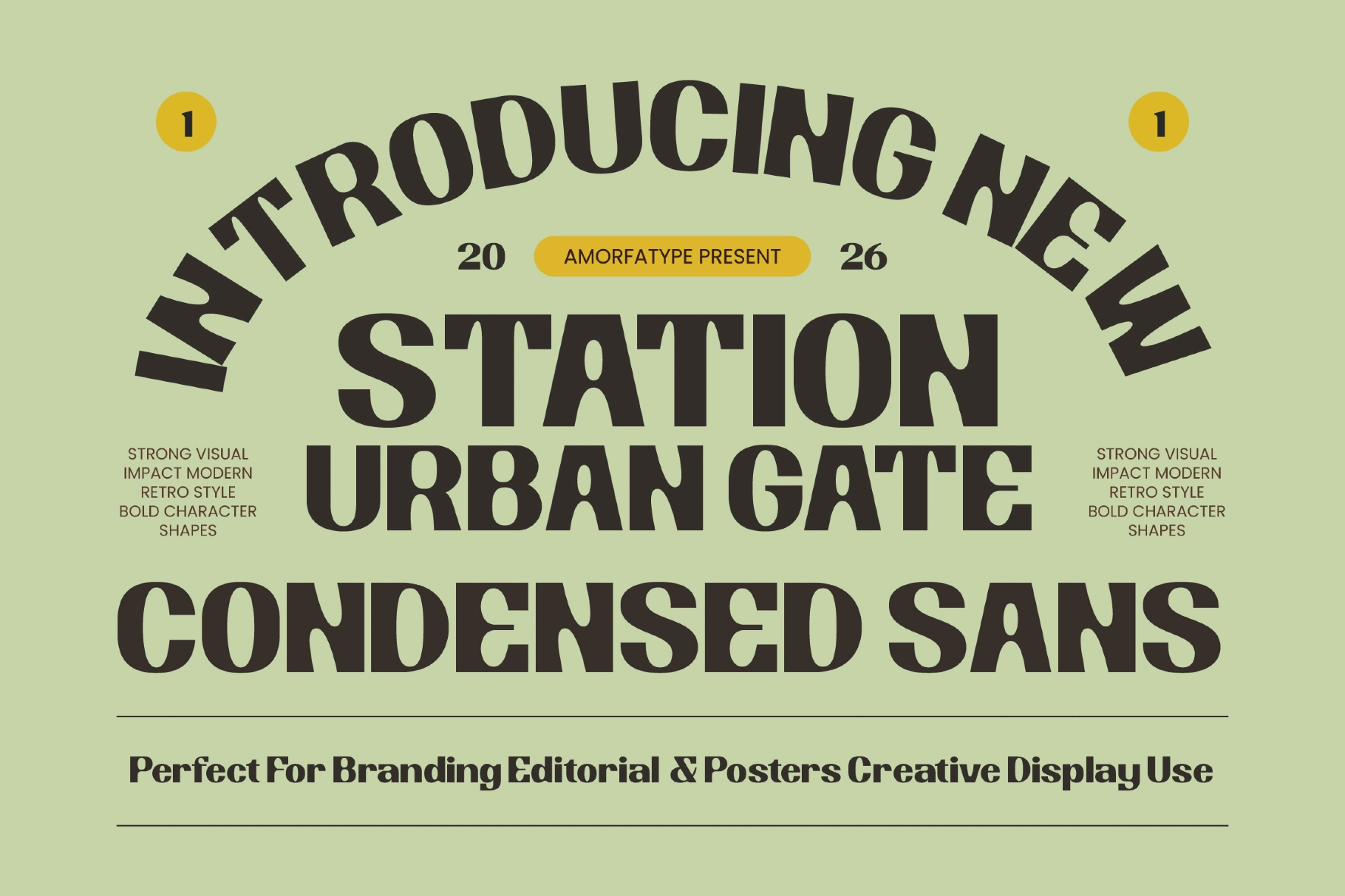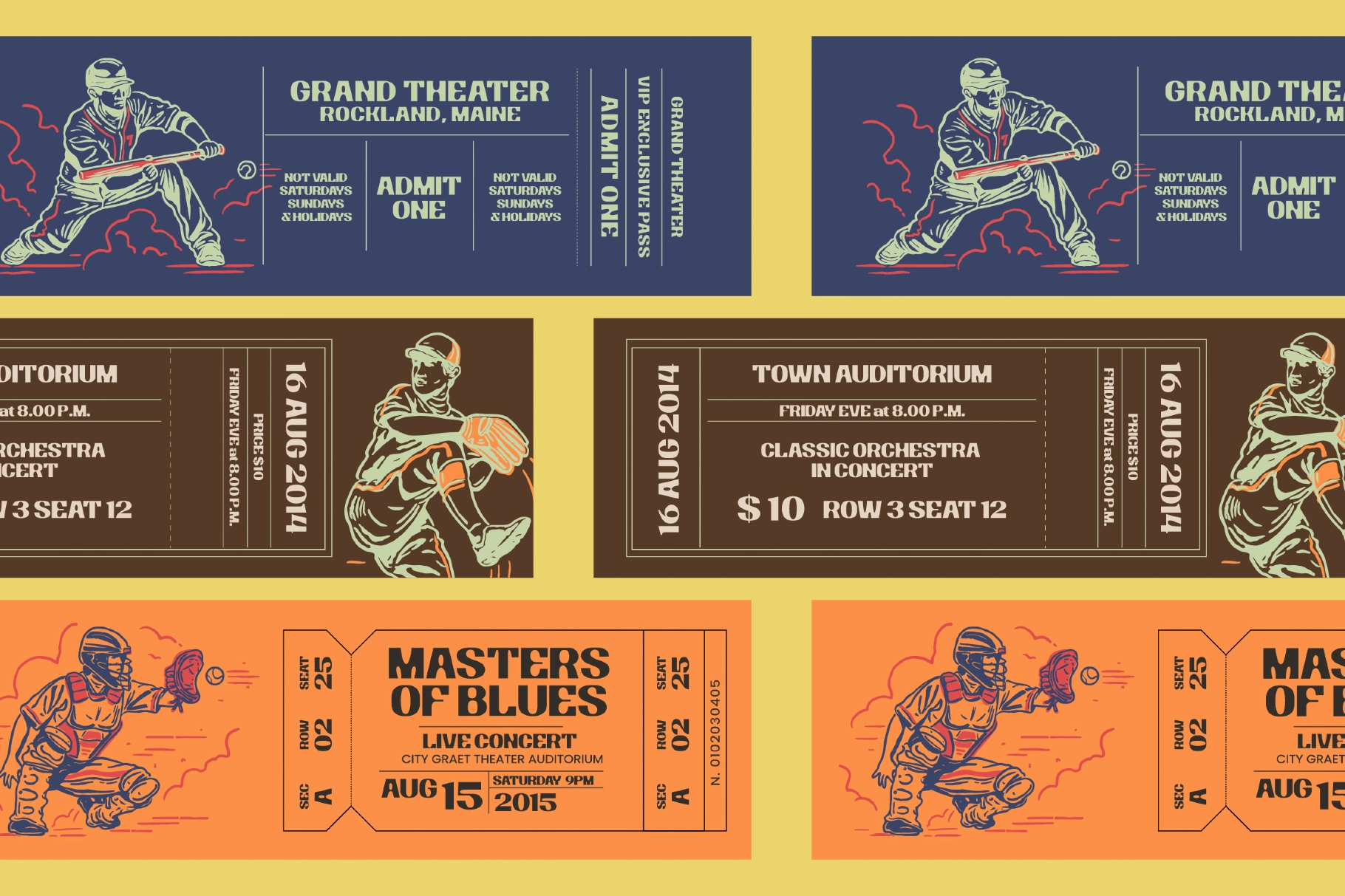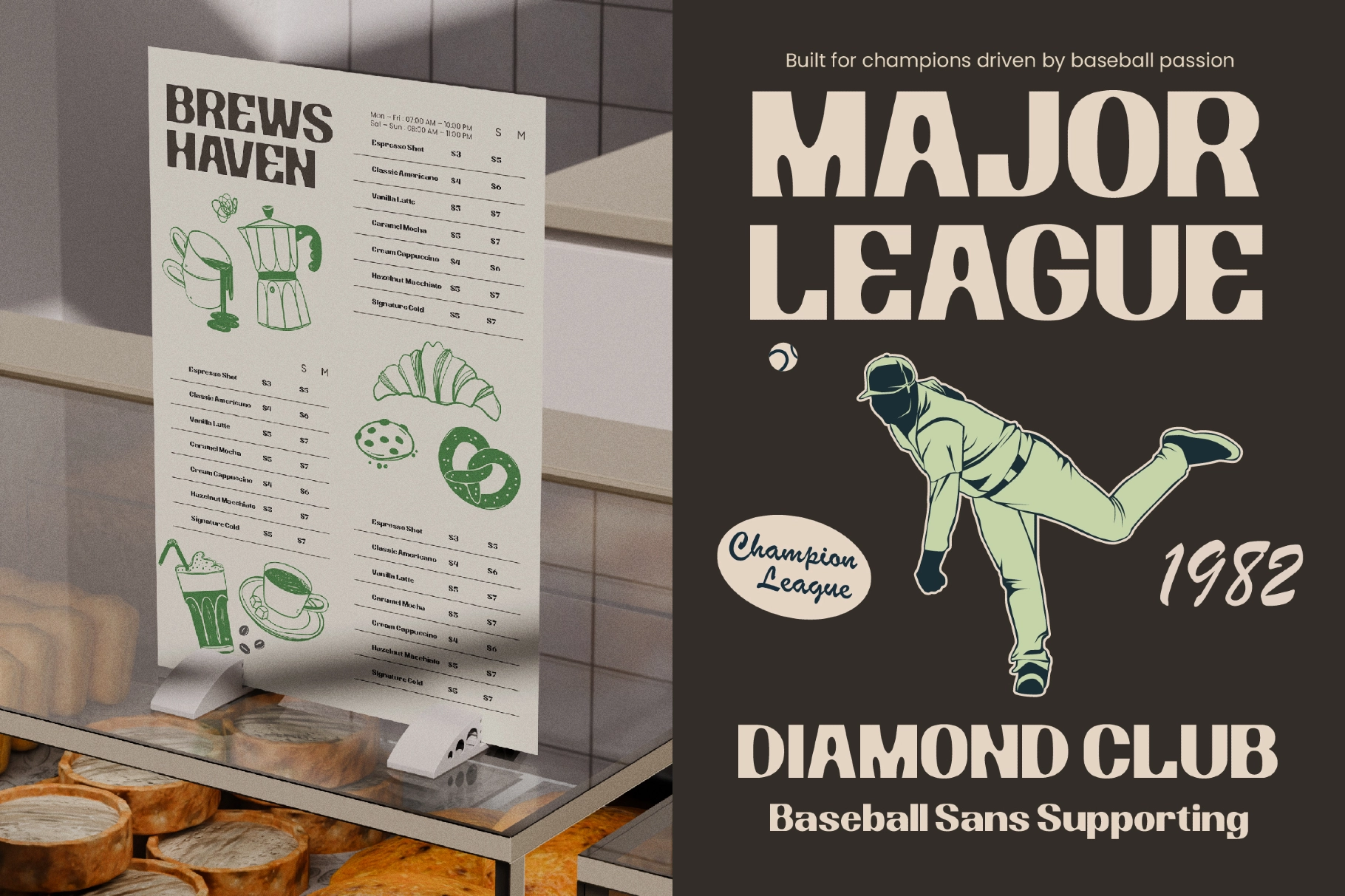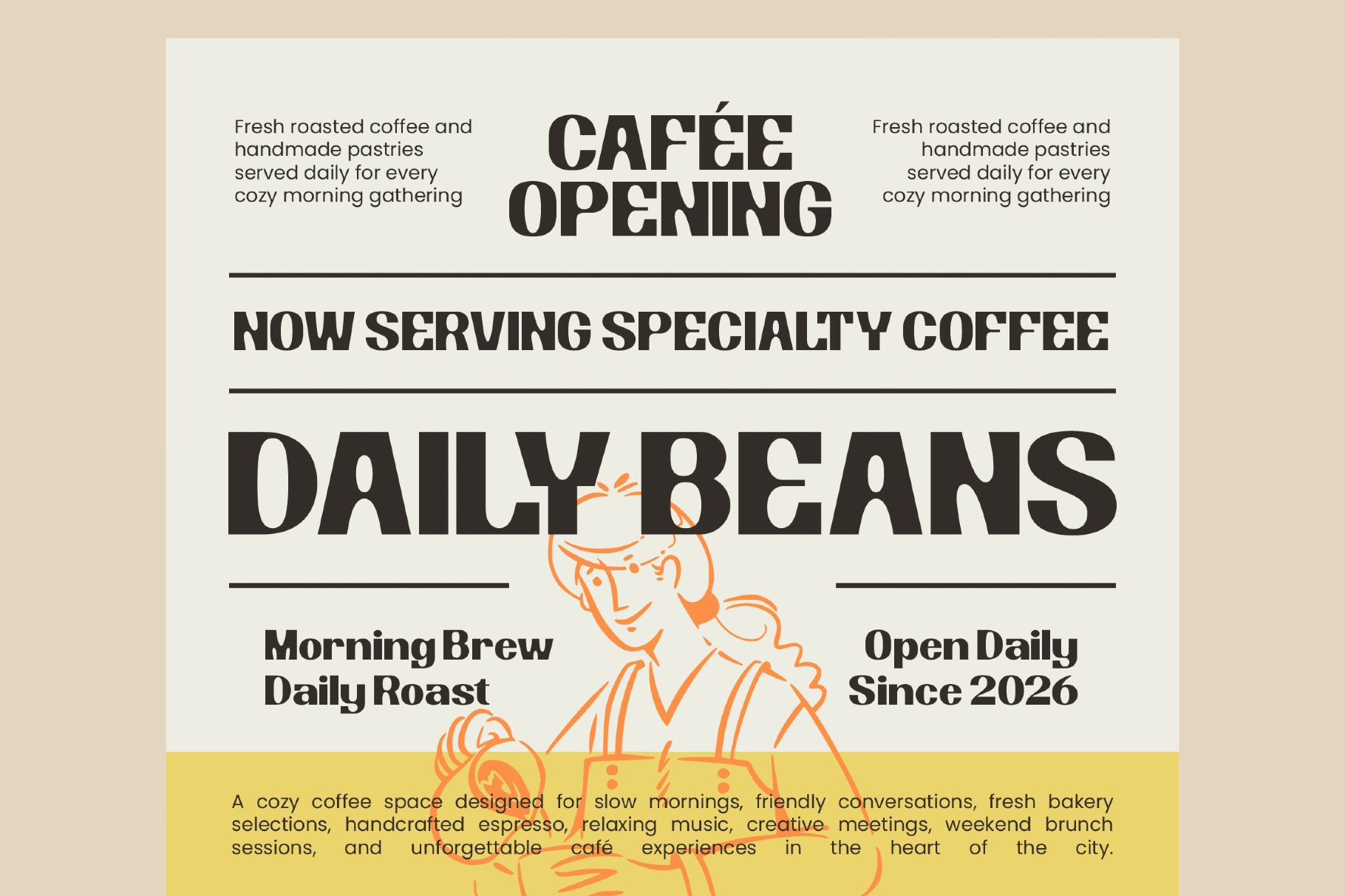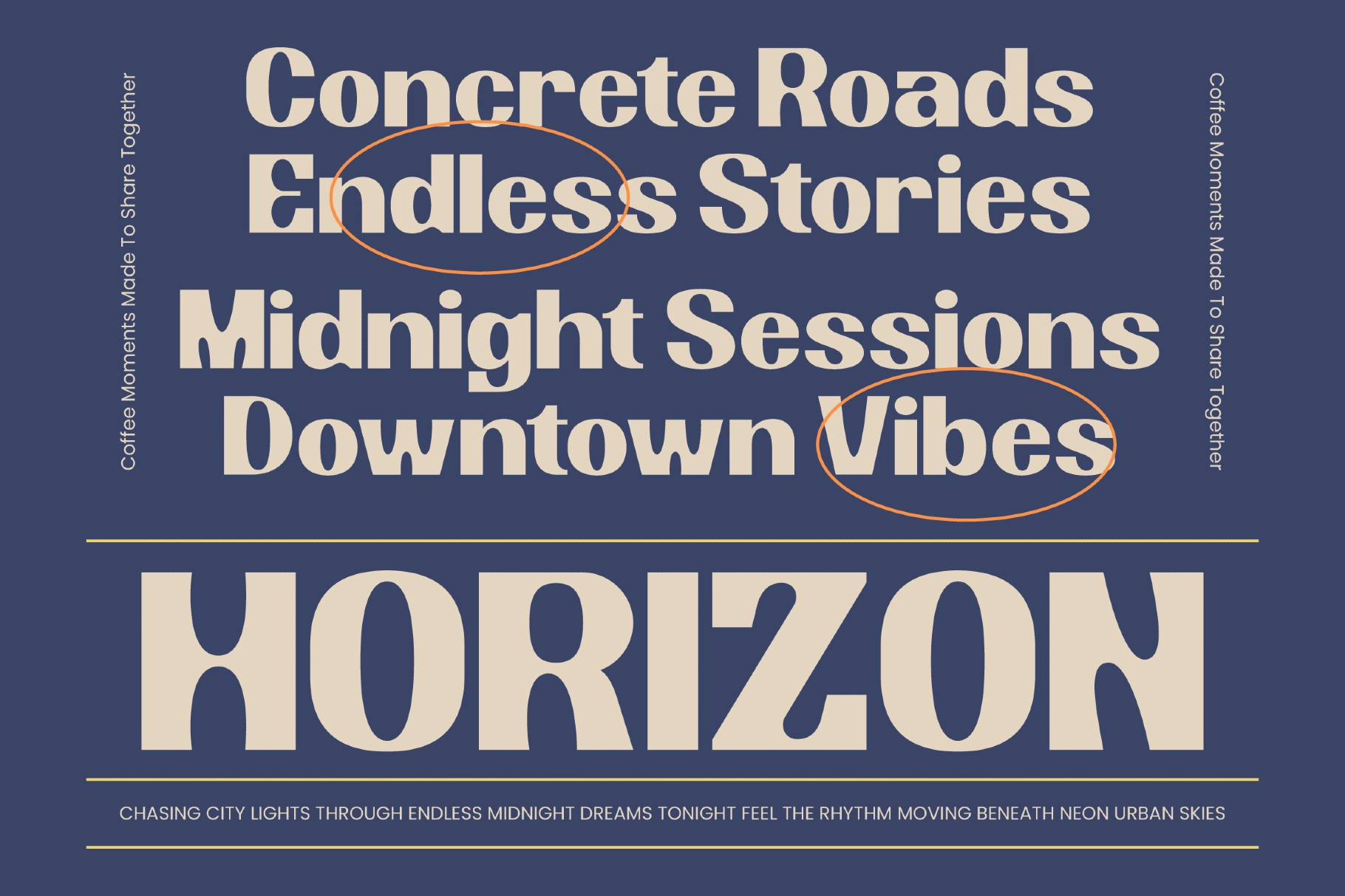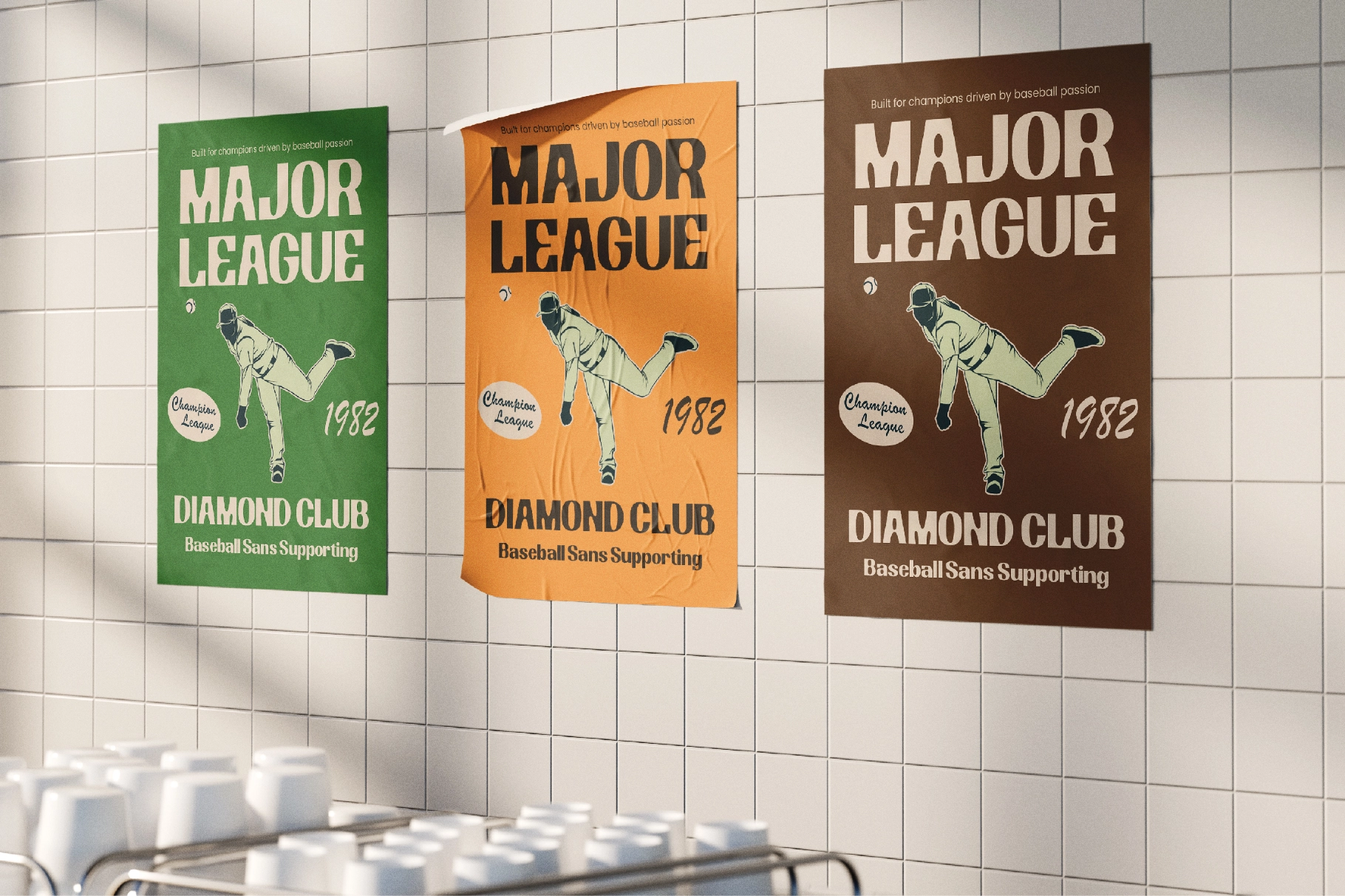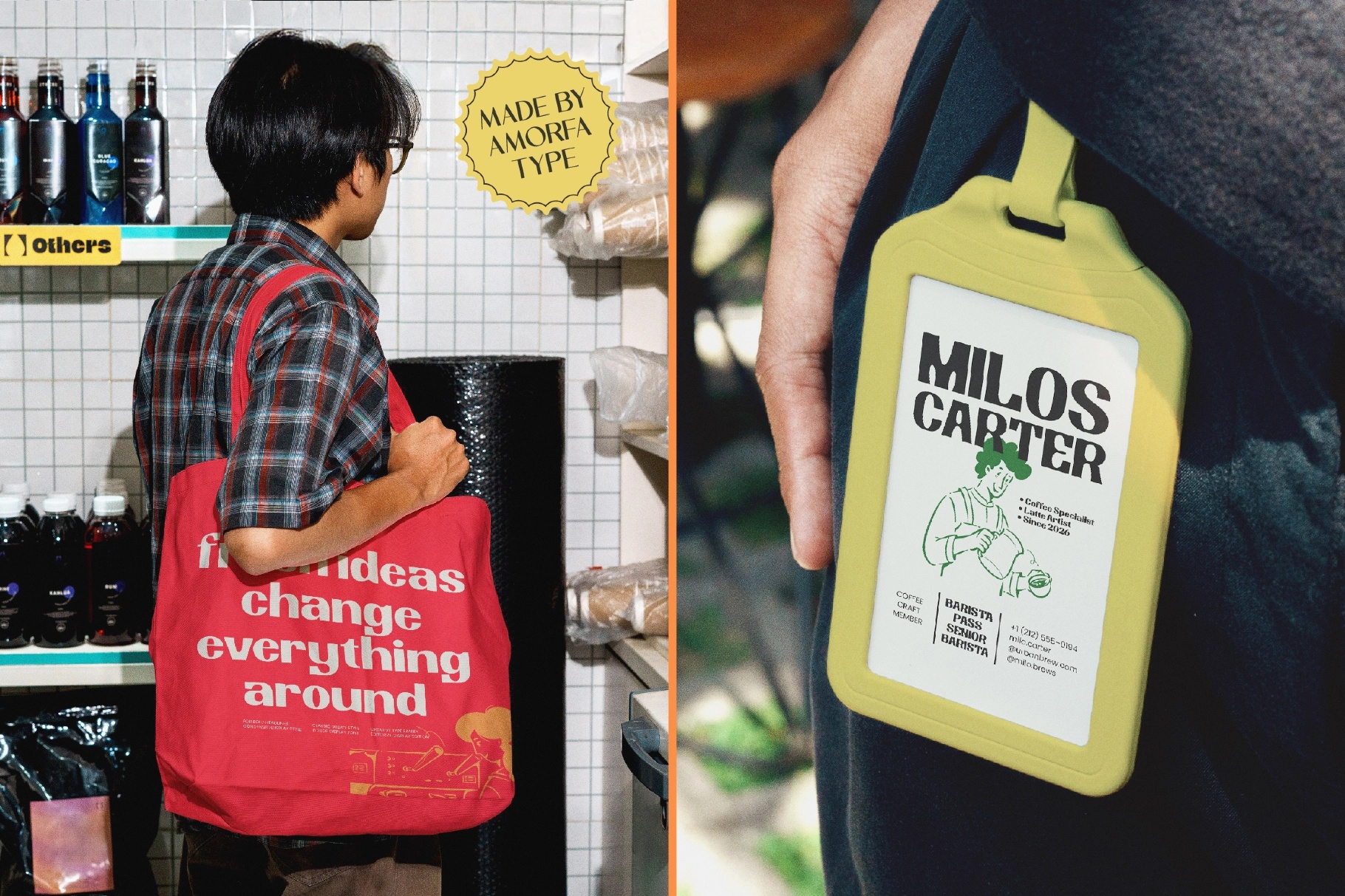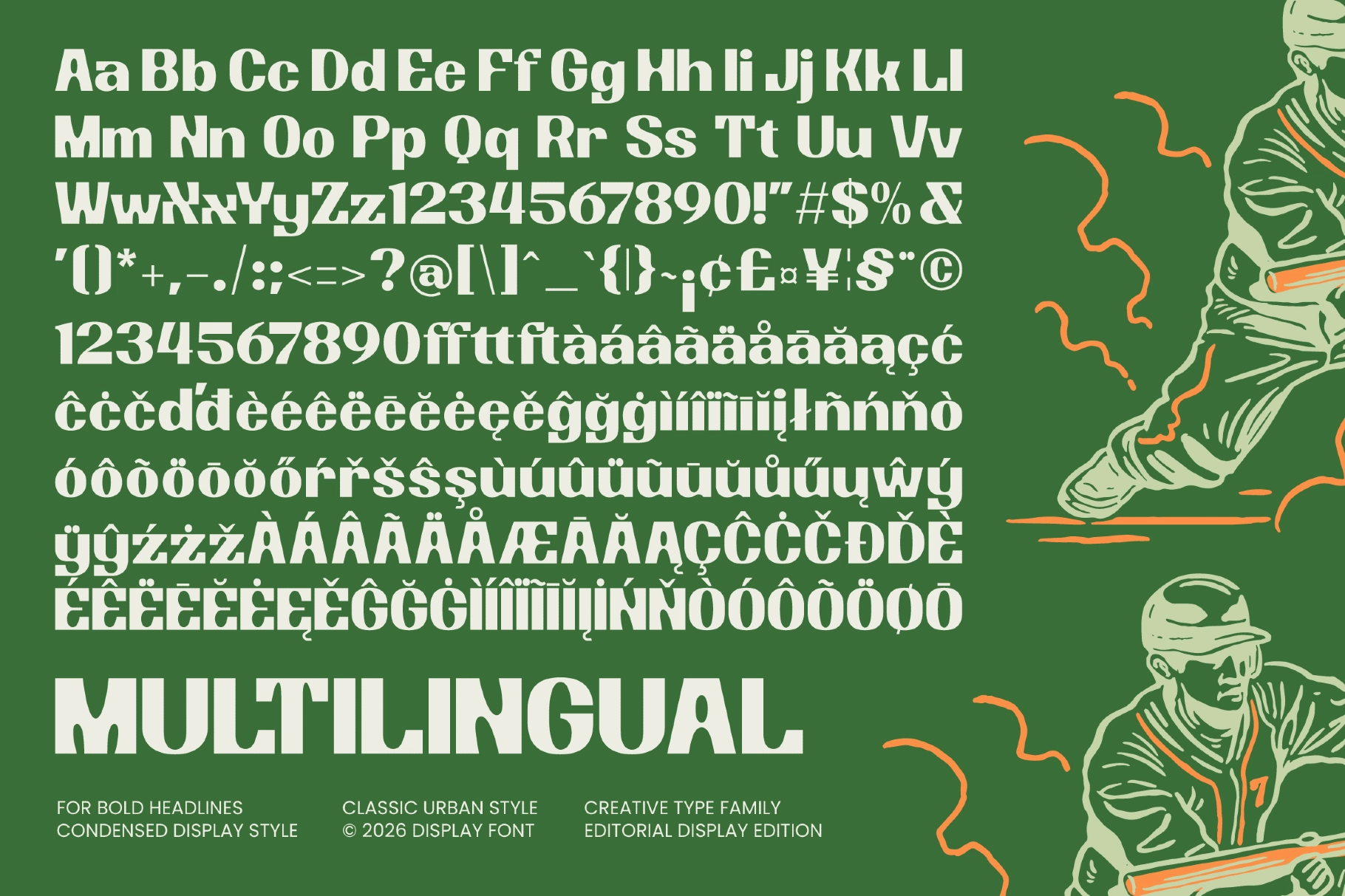
Station Urban Gate - Condensed Sans Font
This condensed display sans has heavy block shapes, tight proportions, and a retro athletic attitude with a street poster edge. Its bold rhythm is made for large headlines, signage, and branding where space is limited but the type still needs to hit hard.
Station brings a city-sports character to café menus, tote bag graphics, ID cards, baseball posters, editorial covers, packaging, bar signage, merch prints, wayfinding layouts, social media headers, event posters, club flyers, and logo systems. The multilingual set, numerals, punctuation, and ligatures give it practical range for compact compositions with plenty of visual weight.
• Ligatures